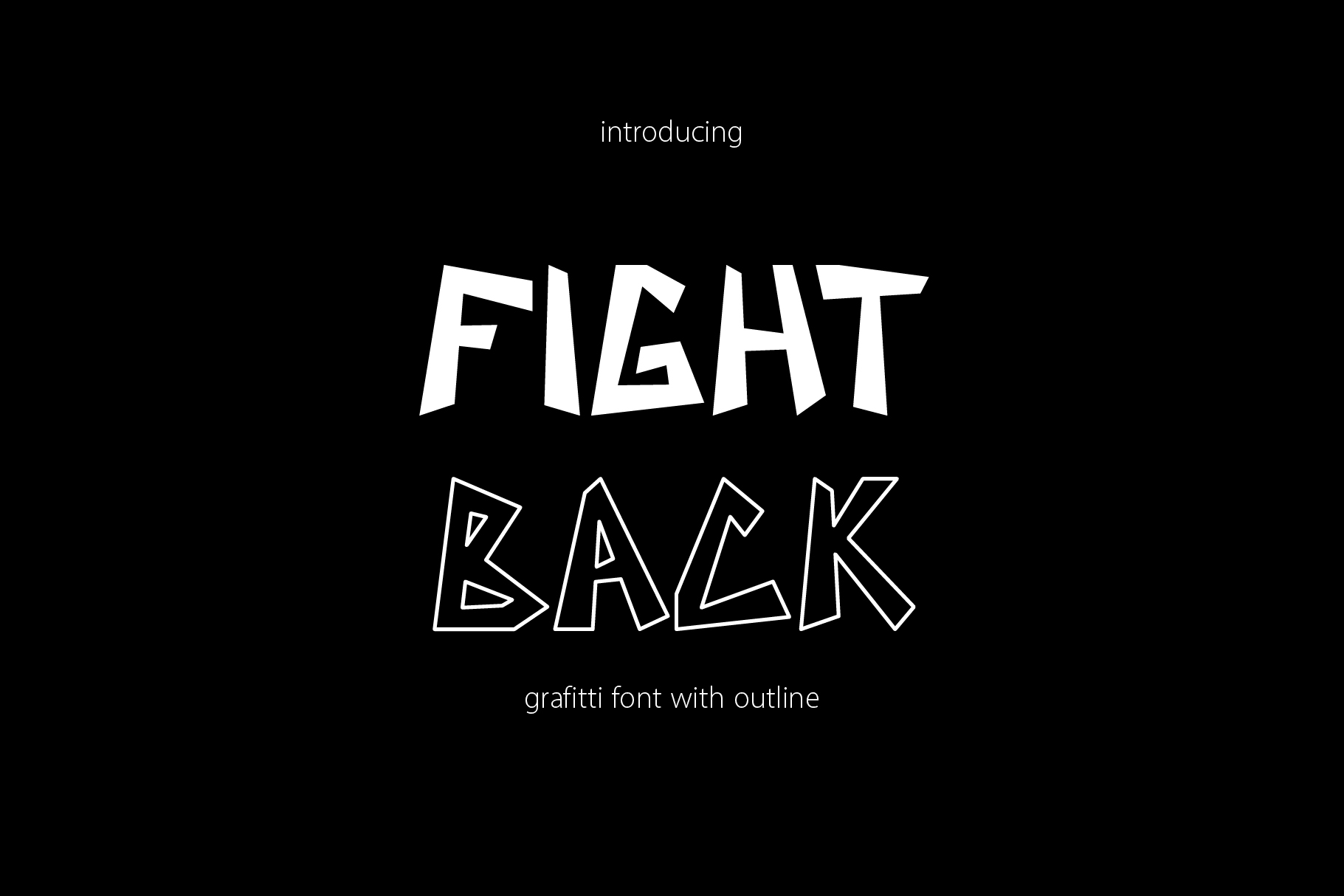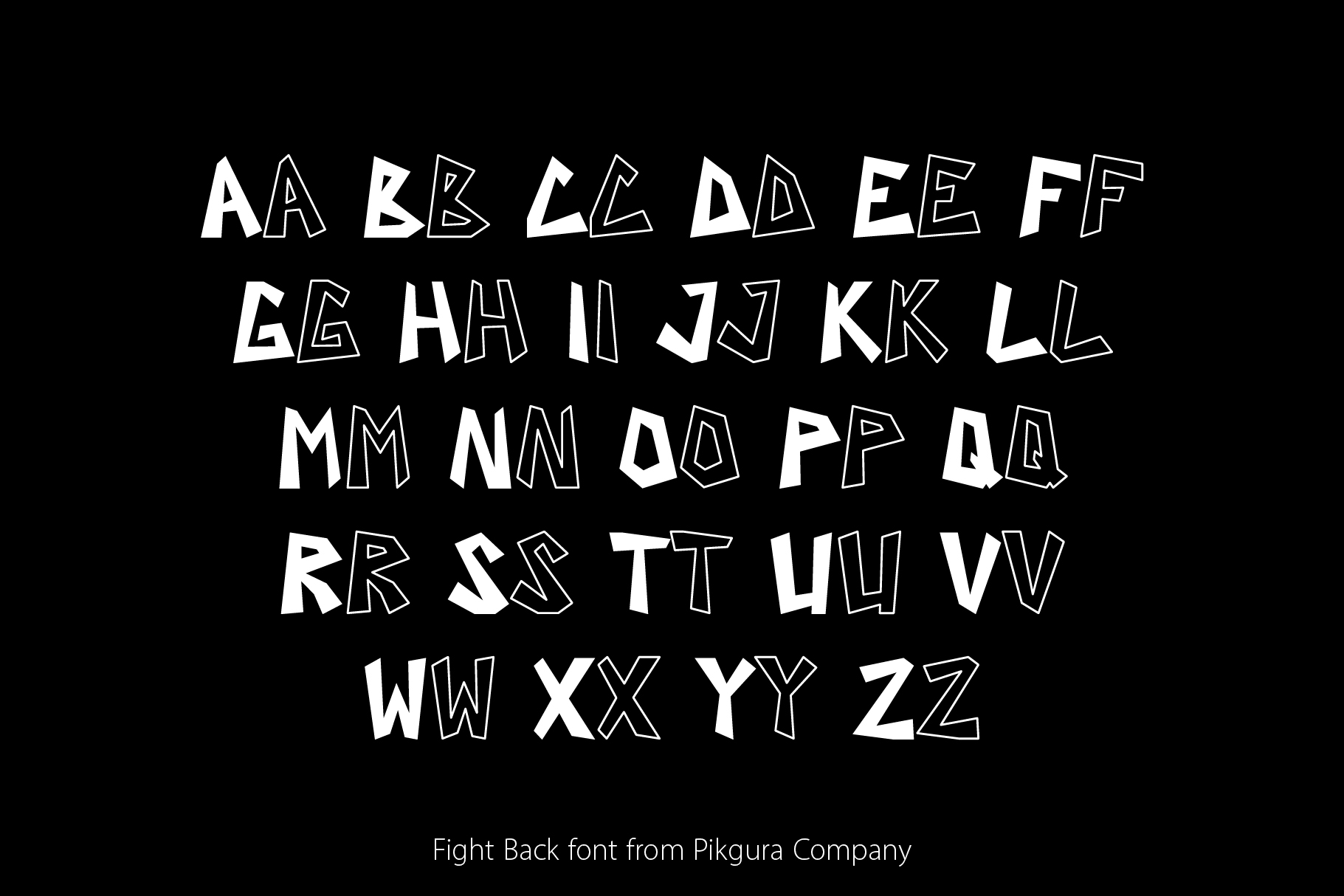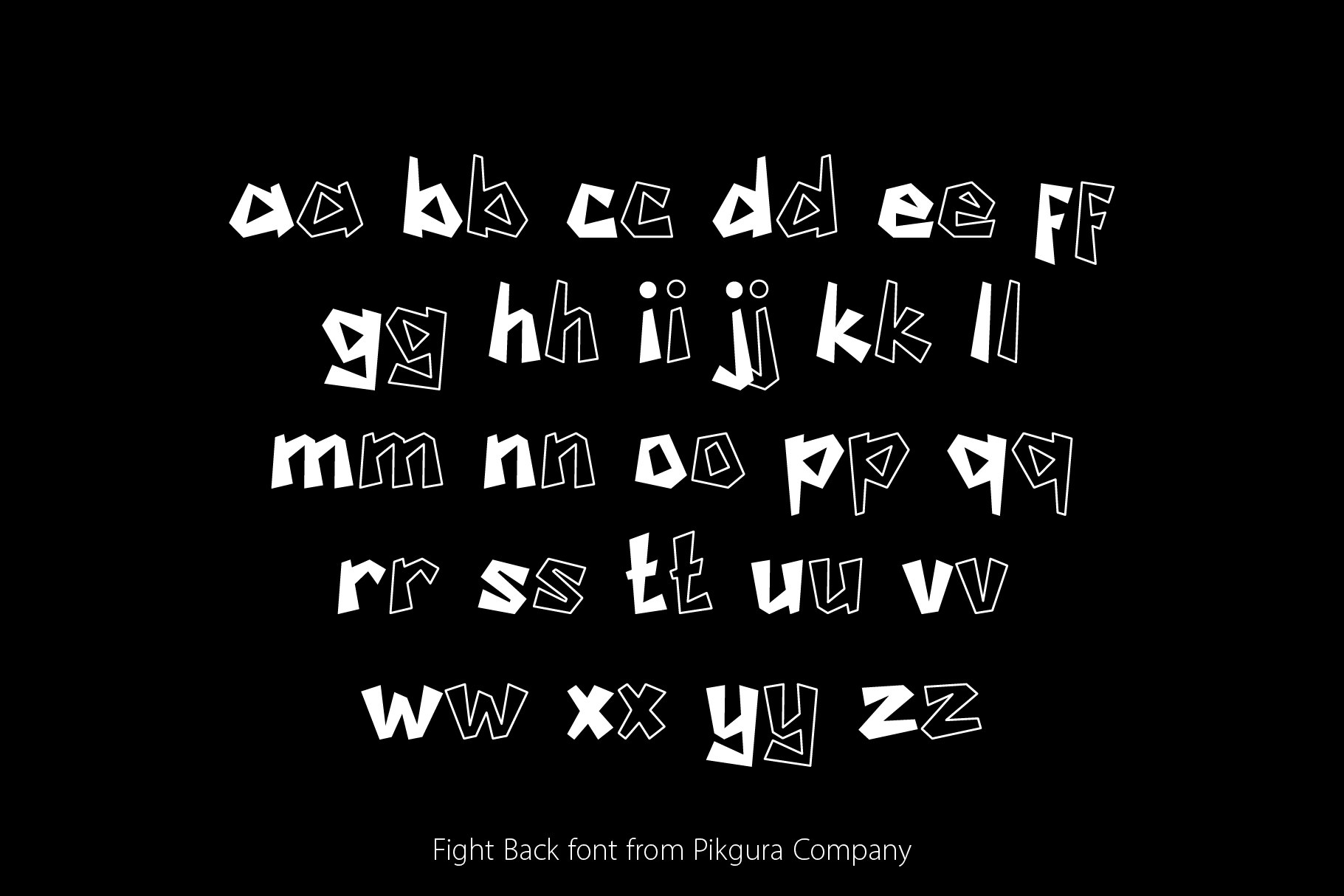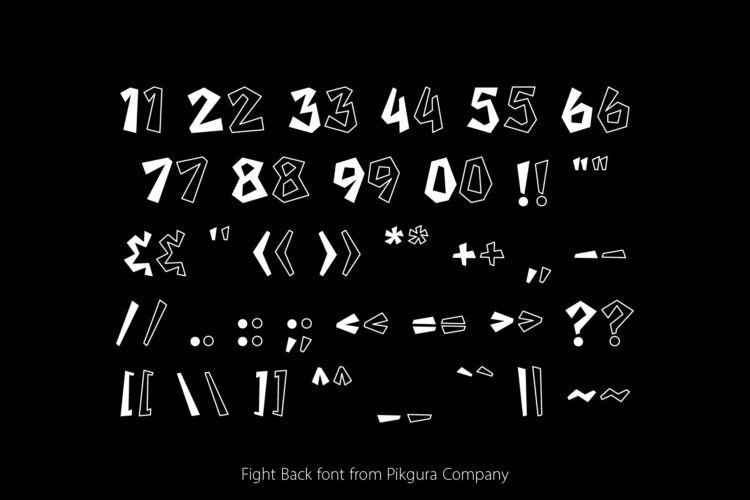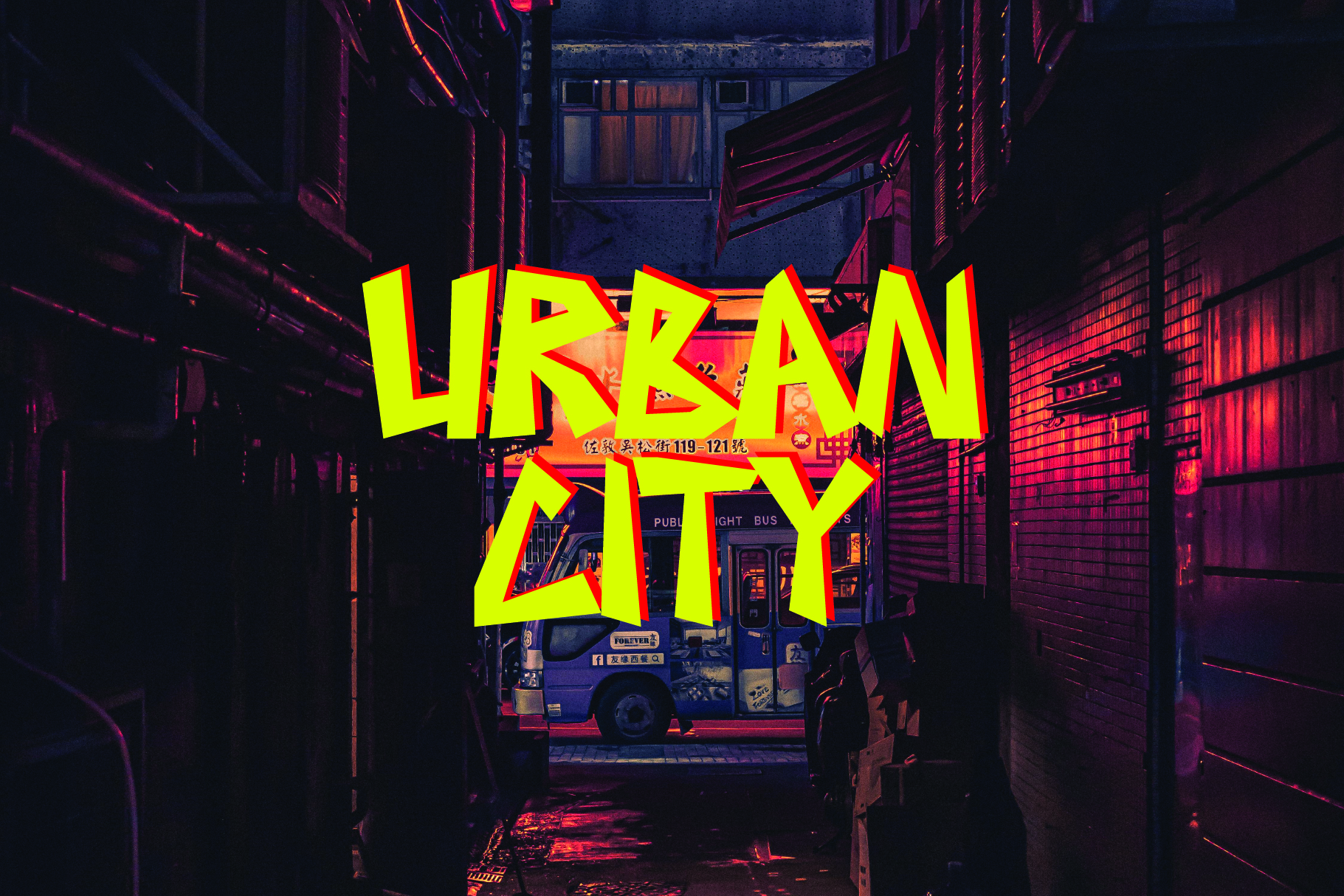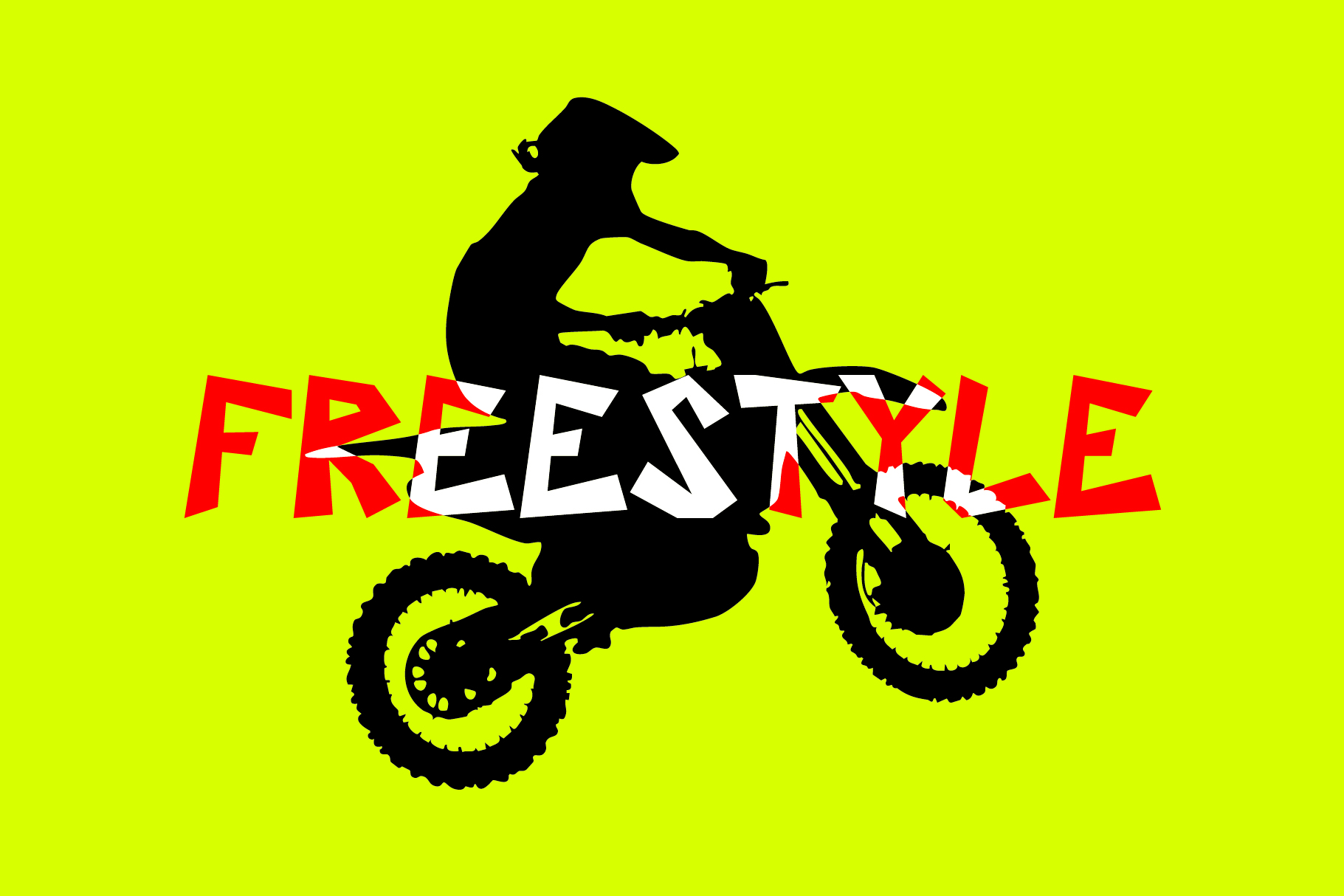
Don’t settle for boring, generic fonts. Instead, download PGR Fight Back today and make a statement with your designs. Whether you’re working on posters, apparel, thumbnails, or more, this urban‑edge graffiti font gives your creations a bold identity.
Moreover, PGR Fight Back includes a full character set: uppercase and lowercase letters, numbers, and basic punctuation. In addition, you’ll also get a versatile outline version—perfect for creating eye‑catching designs and standout visuals.
PGR Fight Back – Street Font